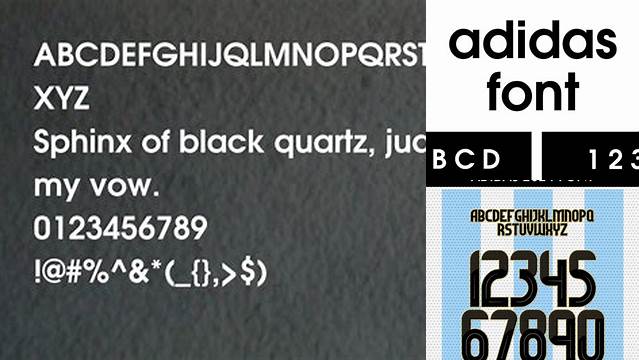
Are you looking to download the Adidas 2026 font for free? Well, you've come to the right place, guys! In this comprehensive guide, we'll dive deep into everything you need to know about this iconic font, including its history, characteristics, where to find it, and how to use it in your projects. We'll also explore some alternative fonts that capture the Adidas aesthetic if you can't get your hands on the official one. So, buckle up and let's get started on this fontastic journey!
What Makes the Adidas Font So Special?
Before we get into the nitty-gritty of downloading, let's take a moment to appreciate what makes the Adidas font so special. The font, often referred to as the Adidas 2026 font, isn't just any typeface; it's a crucial part of the brand's identity. It embodies the sporty, dynamic, and modern spirit that Adidas represents. This font is instantly recognizable and evokes a sense of athleticism, performance, and style. Think about it – every time you see the Adidas logo or their marketing materials, the font plays a significant role in shaping your perception of the brand. The clean lines, the bold presence, and the subtle details all contribute to a cohesive and powerful visual identity. This font is more than just letters; it's a symbol of quality, innovation, and a rich sporting heritage. Whether you're designing a sports-themed project, creating branding materials, or simply looking to add a touch of athletic flair to your work, understanding the essence of the Adidas font is key. The distinctive character of the Adidas font makes it a popular choice for a wide range of applications, from apparel design to website graphics. So, let's delve deeper into its characteristics and explore why it resonates with so many people.
Understanding the Adidas Font Family
When we talk about the Adidas font, we're not just talking about a single typeface. The Adidas font family encompasses a range of styles and weights, each designed to serve a specific purpose while maintaining a consistent brand identity. Understanding the nuances of this family is crucial if you want to use the font effectively. Typically, the Adidas font family includes variations like bold, italic, and condensed versions, allowing for versatility in design. The bold version, for instance, is often used for headlines and titles, commanding attention and conveying strength. The italic version adds a touch of dynamism and is perfect for emphasizing specific words or phrases. The condensed version, on the other hand, is ideal for situations where space is limited, such as on product labels or in tight layouts. Each variation within the font family is carefully crafted to maintain the overall aesthetic while offering distinct characteristics. This cohesive approach ensures that the Adidas brand remains consistent across all its visual communications. Furthermore, the Adidas font family often includes different weights, ranging from light to extra bold, providing even more flexibility for designers. These weights allow for subtle variations in emphasis and visual hierarchy, ensuring that the font can adapt to various design needs. By understanding the different styles and weights within the Adidas font family, you can make informed decisions about how to use the font in your projects, ensuring that it aligns perfectly with the brand's identity and your design goals. The versatility offered by the Adidas font family is one of the key reasons why it remains a popular choice among designers and brands alike.
Free Alternatives to the Adidas Font
Since obtaining the official Adidas font for free can be challenging due to copyright restrictions, exploring alternative fonts that capture a similar aesthetic is a practical solution. Fortunately, there are numerous typefaces available that share the sporty, modern, and geometric characteristics of the Adidas font. One excellent alternative is Bebas Neue, a popular sans-serif font known for its clean lines and tall, narrow characters. Bebas Neue exudes a sense of athleticism and dynamism, making it a great choice for headlines, titles, and branding materials. Another fantastic option is Montserrat, a versatile geometric sans-serif font that offers a wide range of weights and styles. Montserrat's clean and contemporary design makes it suitable for various applications, from website design to print materials. For a font that closely resembles the Adidas font's geometric structure, consider Futura. This classic typeface boasts a sleek and modern appearance, with its circular and angular forms creating a visually appealing and highly legible design. If you're looking for a font with a slightly more rounded and friendly feel, Open Sans is an excellent choice. This humanist sans-serif font is known for its clarity and legibility, making it a great option for body text and user interfaces. Another noteworthy alternative is Lato, a sans-serif typeface with semi-rounded details that give it a warm and approachable feel. Lato's balanced design makes it versatile enough for both headlines and body text. When choosing an alternative font, consider the overall tone and message you want to convey. Experiment with different typefaces and weights to find the perfect match for your project. Remember to also check the licensing terms of the font to ensure that it's suitable for your intended use. By exploring these free alternatives, you can achieve the Adidas aesthetic without infringing on copyright restrictions. The key is to find a font that embodies the same spirit and style while offering the flexibility and versatility you need for your design projects.
How to Use Adidas Font in Your Projects
Now that you have a better understanding of the Adidas font and its alternatives, let's discuss how to effectively use it in your projects. The Adidas font, with its sporty and modern aesthetic, is best suited for designs that require a sense of dynamism, strength, and contemporary style. When using the Adidas font or a similar typeface, it's important to consider the overall design context. For example, if you're creating a sports-related website, the font can be used for headlines, navigation menus, and call-to-action buttons. Its bold and impactful nature will help grab the user's attention and convey a sense of energy and excitement. In branding materials, the Adidas font can be used to create a strong and recognizable identity. Use it consistently across your logo, stationery, and marketing collateral to establish a cohesive brand image. When designing apparel, the Adidas font can be incorporated into graphics, slogans, and logos, adding a sporty and stylish touch. However, it's important to use the font judiciously and avoid overusing it. Too much of any font can make a design feel cluttered and overwhelming. Instead, use it strategically to highlight key elements and create visual interest. When pairing the Adidas font with other typefaces, opt for clean and simple fonts that complement its geometric structure. Sans-serif fonts like Helvetica, Arial, or Open Sans work well as secondary typefaces for body text and supporting information. Pay attention to the font's weight and size to create a visual hierarchy and ensure readability. Use different weights and sizes to distinguish between headlines, subheadings, and body text. Also, consider the font's color and contrast against the background. Choose colors that enhance readability and create a visually appealing design. Remember to always respect the font's design and purpose. Avoid distorting or stretching the font, as this can compromise its legibility and aesthetic appeal. By following these guidelines, you can effectively use the Adidas font or its alternatives to create compelling and visually engaging designs. The key is to understand the font's characteristics and apply it thoughtfully within the overall design context.
Conclusion: Embrace the Adidas Aesthetic
In conclusion, the Adidas font is a powerful visual element that embodies the brand's sporty, dynamic, and modern identity. While obtaining the official Adidas font for free can be challenging, there are numerous alternatives available that capture a similar aesthetic. By understanding the characteristics of the Adidas font and exploring fonts like Bebas Neue, Montserrat, Futura, Open Sans, and Lato, you can effectively incorporate the Adidas aesthetic into your designs. Remember to always download fonts from reputable sources and respect copyright restrictions. When using the Adidas font or its alternatives, consider the overall design context and use the font strategically to highlight key elements and create visual interest. Pair it with complementary typefaces and pay attention to font weight, size, color, and contrast to ensure readability and visual appeal. By following the tips and guidelines outlined in this guide, you can confidently embrace the Adidas aesthetic and create compelling designs that resonate with your audience. Whether you're designing a sports-themed website, creating branding materials, or adding a touch of athletic flair to your projects, the Adidas font and its alternatives offer a versatile and impactful typographic solution. So, go ahead and experiment, explore, and let your creativity soar!